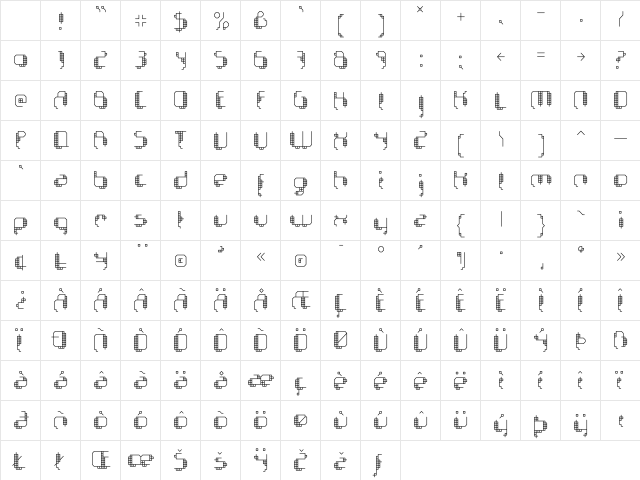
Complete Chemo Stroke glyph index. Displaying only characters natively supported by Chemo Stroke font.
Chemo is a composed and adaptable typeface that performs quietly and consistently across a wide range of design contexts.